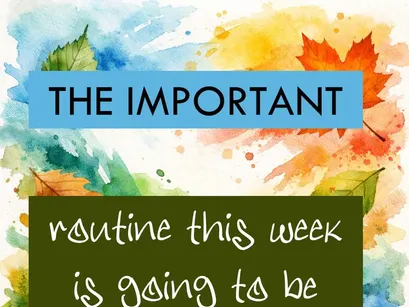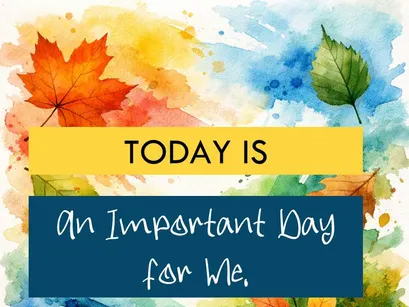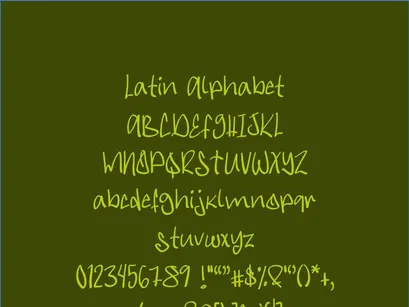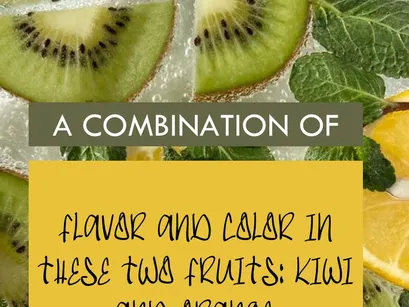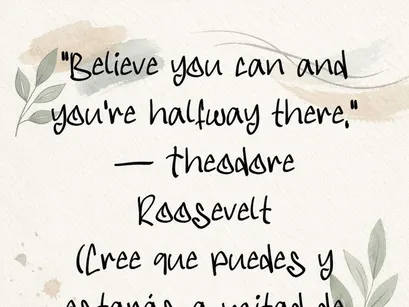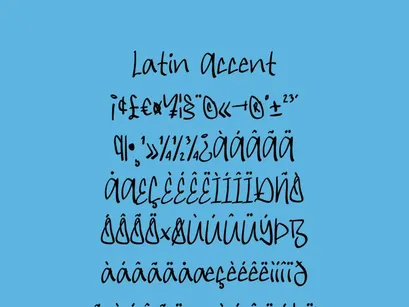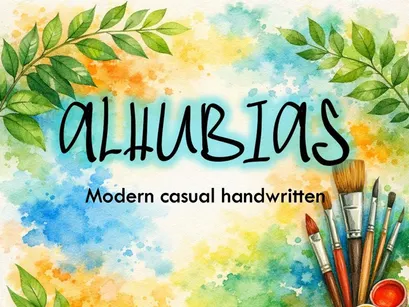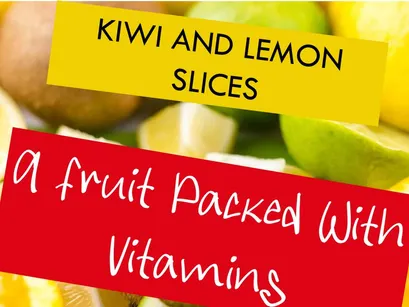
ALHUBIAS is a modern, casual handwritten typeface featuring expressive, natural strokes that evoke creativity and freshness. Its fluid, balanced style makes it an ideal choice for projects seeking a human, artistic touch.
Perfect for planners, inspirational quotes, artisanal branding, eco-friendly packaging, and contemporary digital content.